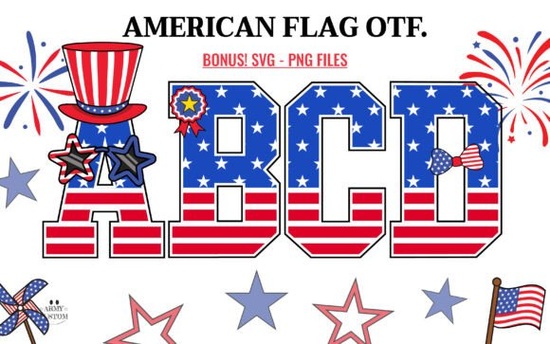
If you're working on a patriotic-themed project whether it’s for Memorial Day, the Fourth of July, or even Veterans Day the American Flag Font offers a distinctive way to bring that red, white, and blue spirit into your designs. Created with classic Americana in mind, this font blends bold letterforms with subtle star-and-stripe details that evoke national pride without feeling overdone.
What makes this font especially useful is its dual format: a solid black version that works seamlessly with cutting machines like Cricut Design Space, and a full-color version designed for graphic software such as Photoshop, Illustrator, Silhouette Studio, and Inkscape. Keep in mind that the color version uses layered or SVG-style formatting, so it won’t function properly in Cricut unless you convert or flatten it first. If you’re new to using these types of fonts, Creative Fabrica’s Ultimate Font Guide walks you through setup and compatibility step by step.
Who is this font best suited for?
The American Flag Font shines in projects where visual storytelling matters:
- Print-on-demand sellers creating T-shirts, mugs, or posters for summer holidays
- Papercrafters and vinyl cutters making banners, greeting cards, or wall decals
- Small business owners designing seasonal signage or social media graphics
- Hobbyists personalizing gifts or home decor with a patriotic twist
Because of its thematic styling, it pairs well with clean sans-serif fonts for contrast think pairing it with something like the Preppy Coquette for a modern-but-wholesome look, or keeping things bold with another statement typeface like the American Coquette.
How do I know which version to use?
It depends on your tools and output:
- For Cricut, Silhouette Cameo (basic edition), or other cutting machines: Stick with the black .TTF or .OTF file. This version cuts cleanly and layers easily if you’re adding your own colors manually.
- For digital designs, print-ready files, or layered SVG work: Use the color version in compatible programs like Adobe Illustrator or Inkscape. These formats preserve the built-in red-and-blue accents and star motifs.
If you’ve used similar novelty fonts before like the Patriotic US Font or even playful options like the Colorful Blocks Font you’ll find the workflow familiar. Just remember: not all design platforms handle multicolor fonts the same way.
Design tips for authentic patriotic style
To keep your work from looking cluttered or overly themed:
- Use the font sparingly headline text or short phrases work best.
- Avoid combining it with too many other decorative fonts. A simple secondary font (like a clean sans-serif) lets the American Flag Font stand out.
- Stick to traditional patriotic colors (navy, crimson, cream) in backgrounds or supporting elements to enhance cohesion.
- For classroom or community event materials, consider softer pairings like the Back to School Font to balance the boldness.
And don’t forget texture! A subtle paper grain or fabric overlay can make digital prints feel more tactile and handcrafted perfect for holiday markets or Etsy listings.